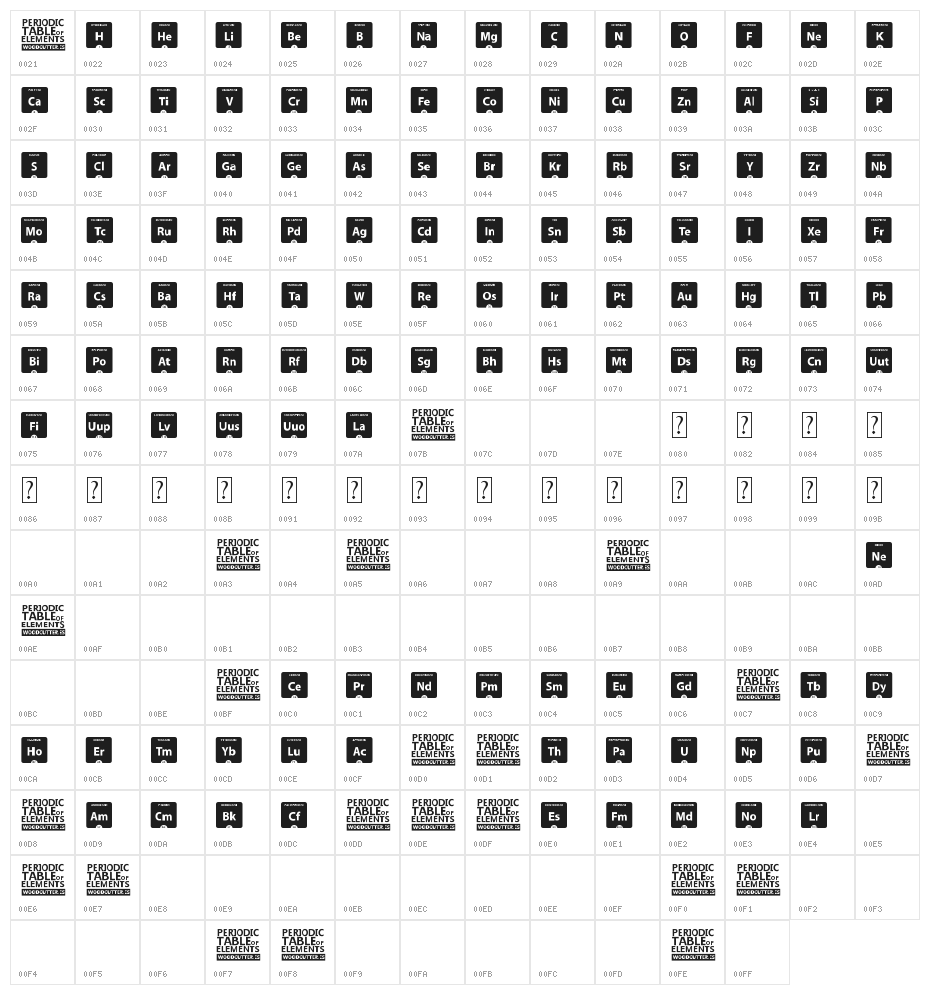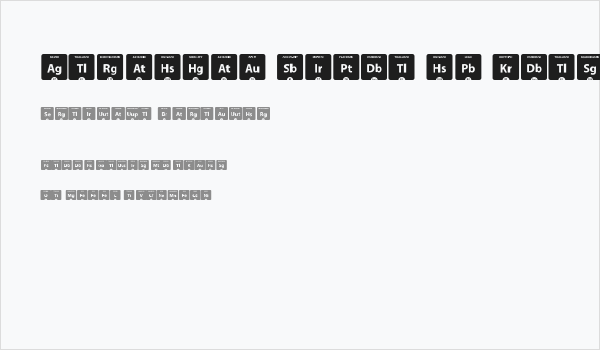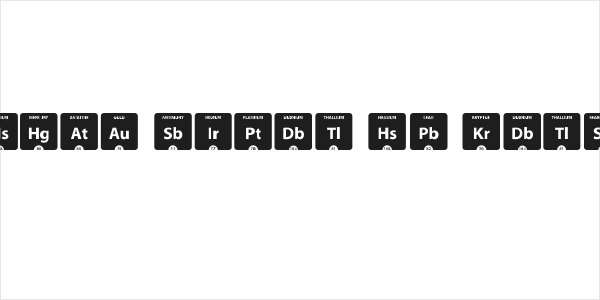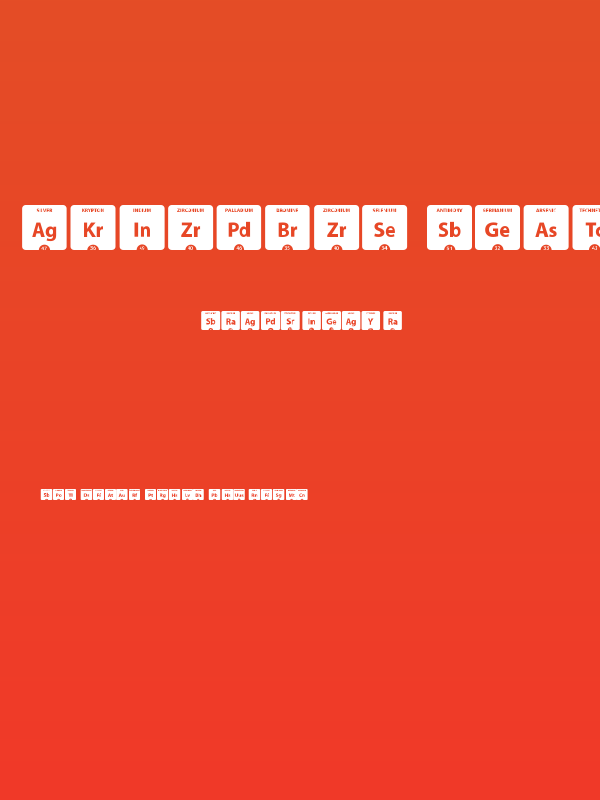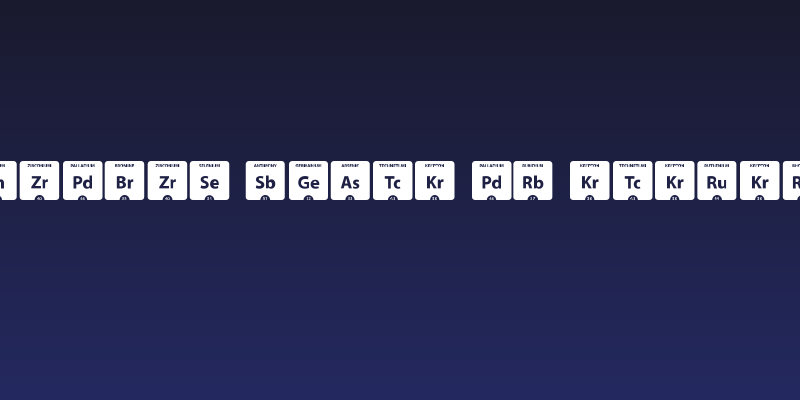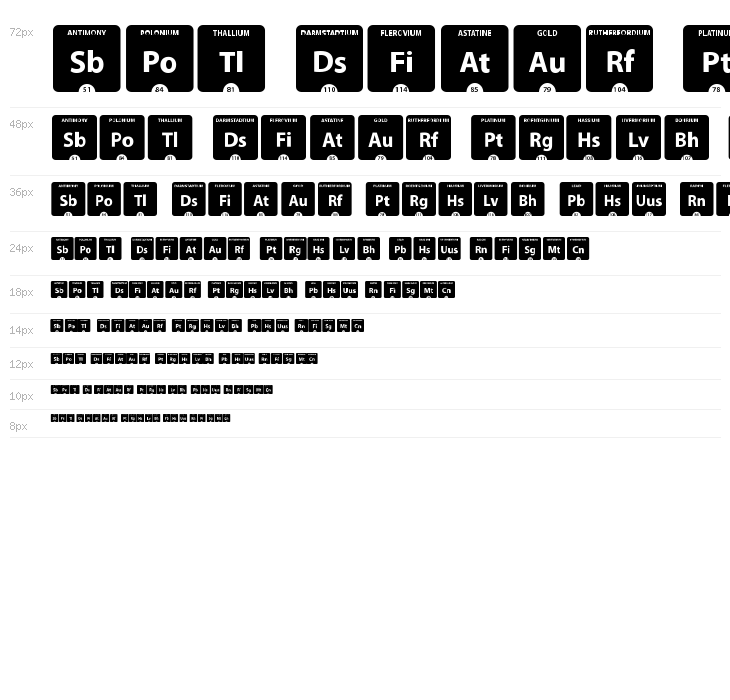
Periodic Table of Elements Font
Periodic Table of Elements Description
A geometric, sans-serif font with uniform stroke width, rounded corners, and clear, legible letterforms. The characters are bold and evenly spaced, with a modern and minimalistic appearance. Numbers and symbols are consistent in style with the letters, maintaining clarity and readability.
| Overall Style | Modern, Minimalistic |
| Use Case | Headlines, Posters, Educational Materials, Infographics |
| Proposed Projects | Educational posters, infographics, science-related branding, modern signage, digital interfaces. |